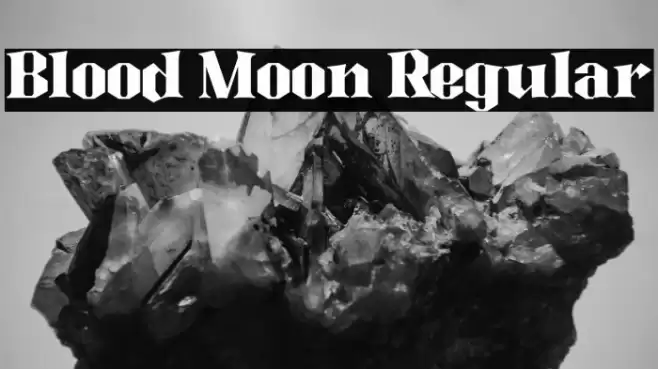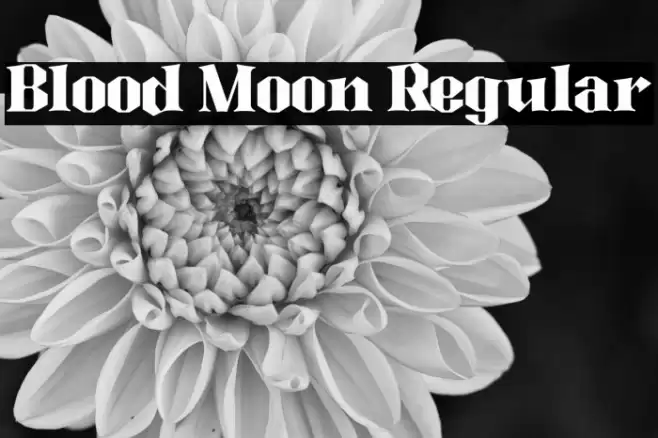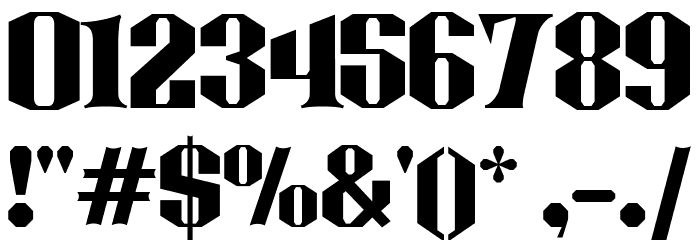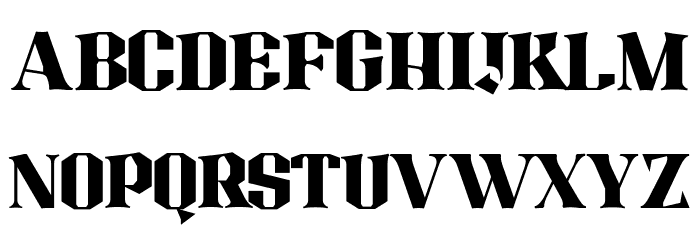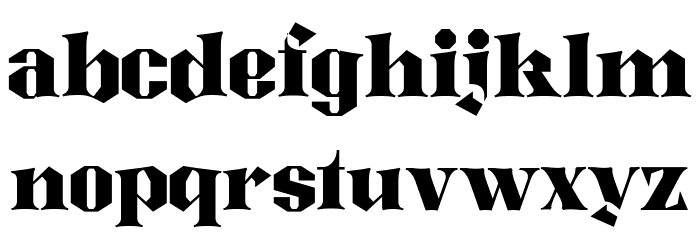
Blood Moon Regular Font
Blood Moon Regular Description
This font features a bold and dramatic style with sharp, angular edges and a gothic influence. The uppercase letters are particularly striking, with a strong presence and a sense of authority. The lowercase letters maintain the same boldness, offering a cohesive look throughout. Numbers and special characters are designed with the same attention to detail, ensuring consistency. The overall appearance is reminiscent of medieval or fantasy themes, making it suitable for projects that require a touch of drama and elegance.
A bold, gothic-inspired font with sharp, angular edges and a dramatic presence from Uncategorized fonts.
- Proposed Projects: Ideal for use in fantasy-themed designs, book covers, posters, and branding that requires a bold, dramatic touch.